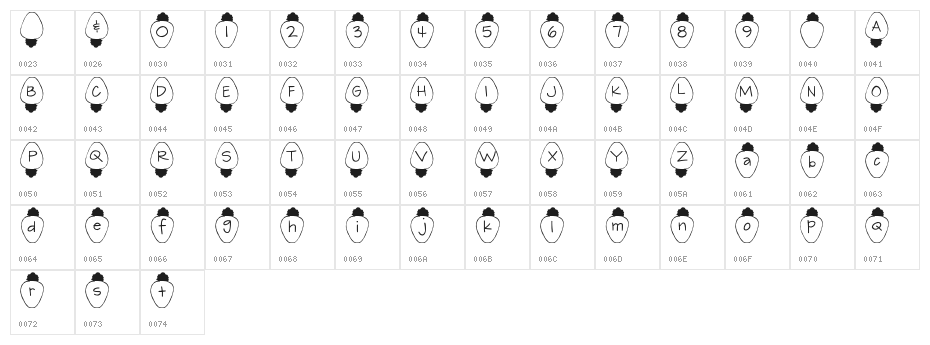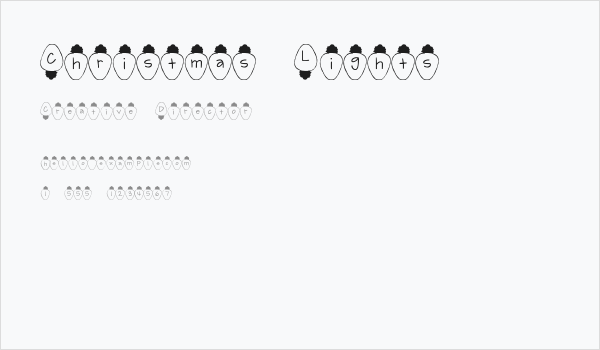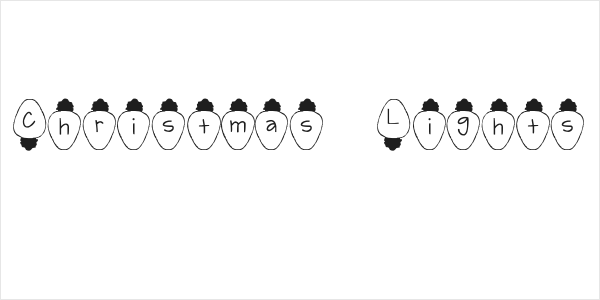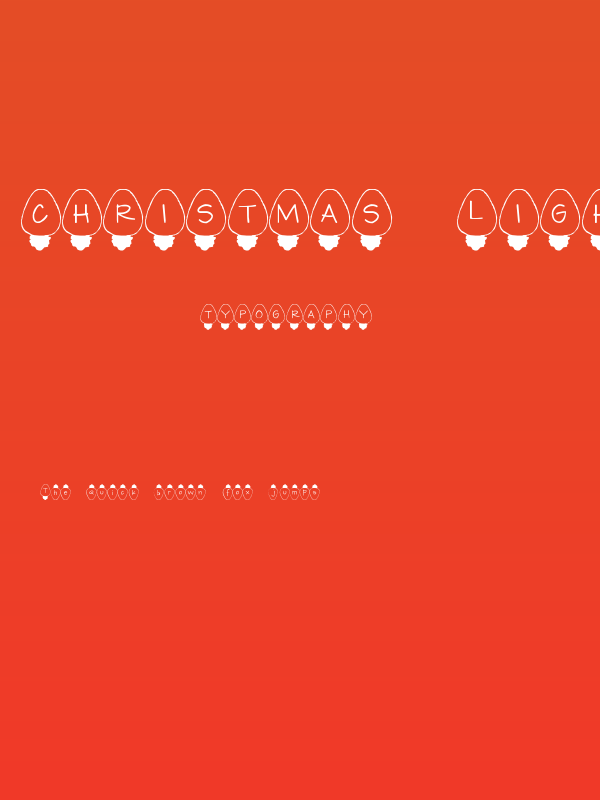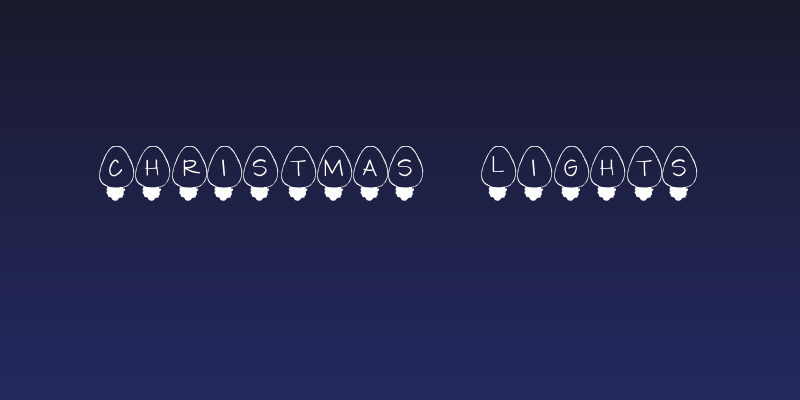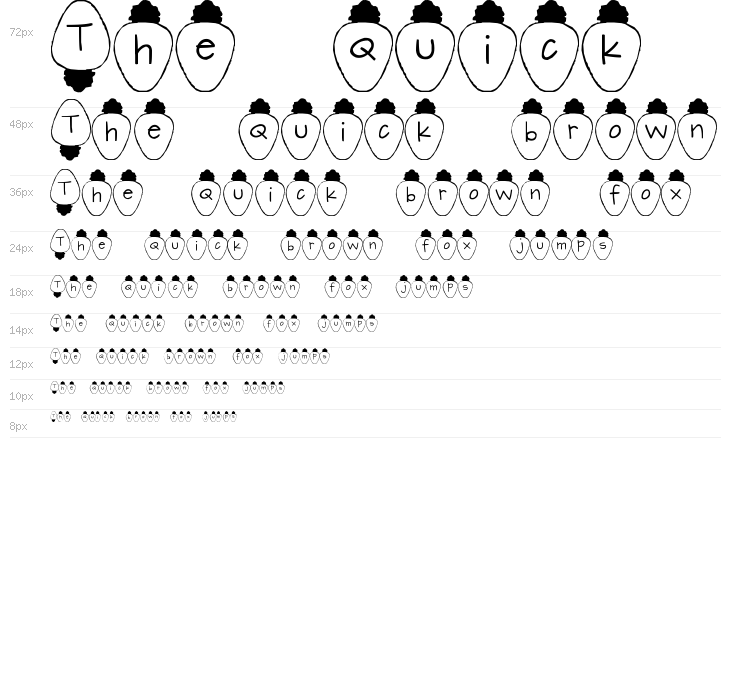
Christmas Lights Font
Christmas Lights Description
This playful and festive font is designed to resemble Christmas lights, with each character enclosed in a bulb shape. The letters are simple, rounded, and sans-serif, giving them a friendly and approachable appearance. The uppercase and lowercase letters maintain a consistent style, while the numbers and special characters are also integrated into the bulb design. This font captures the essence of holiday cheer and is perfect for seasonal projects. The overall look is whimsical and decorative, making it ideal for creative and fun applications.
| Proposed Projects | Ideal for holiday-themed invitations, greeting cards, festive banners, and seasonal advertisements. |